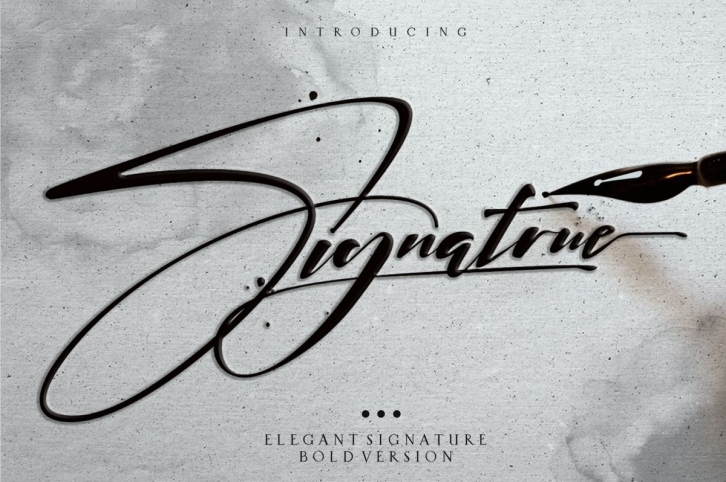
Signatrue Elegant Signature Taste FONT Download
I introduced our newest product Signatrue font ,i hope this font perfect for creating signature logos and watermarks for photography studio or personal photography logo,best for initial or branding logo signature . I made it with a sense of elegant,professional, and unique,
You can try it first by typing the name you want below I make it so simple but has a very luxurious taste in it, this font has a lowercase alternative which is very similar to handwriting using a pen so it is suitable for signature, logos, watermark photos, and many more. just write you can create custom personal signature,create custom logo,so this amazing signature for you all.
maybe next I will make an italic or slant version if this font is much interested and can help many things you want for a signature, branding logo, or watermark.